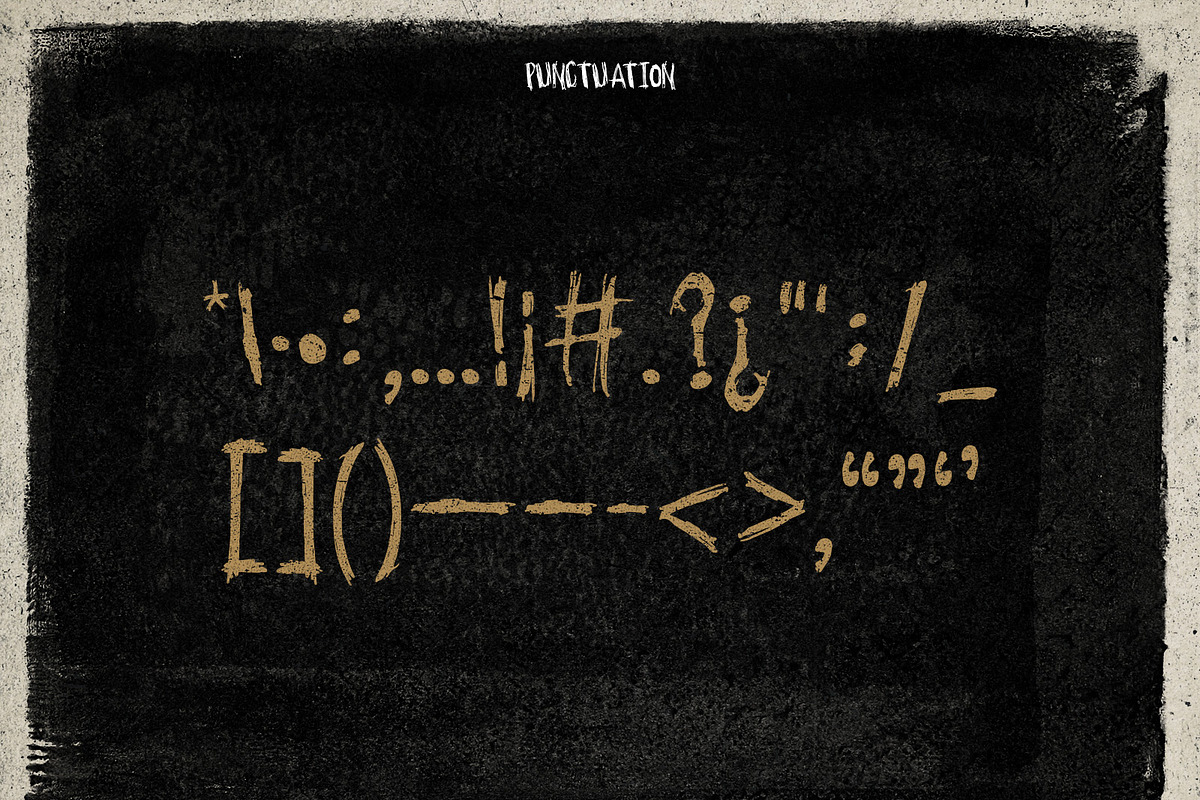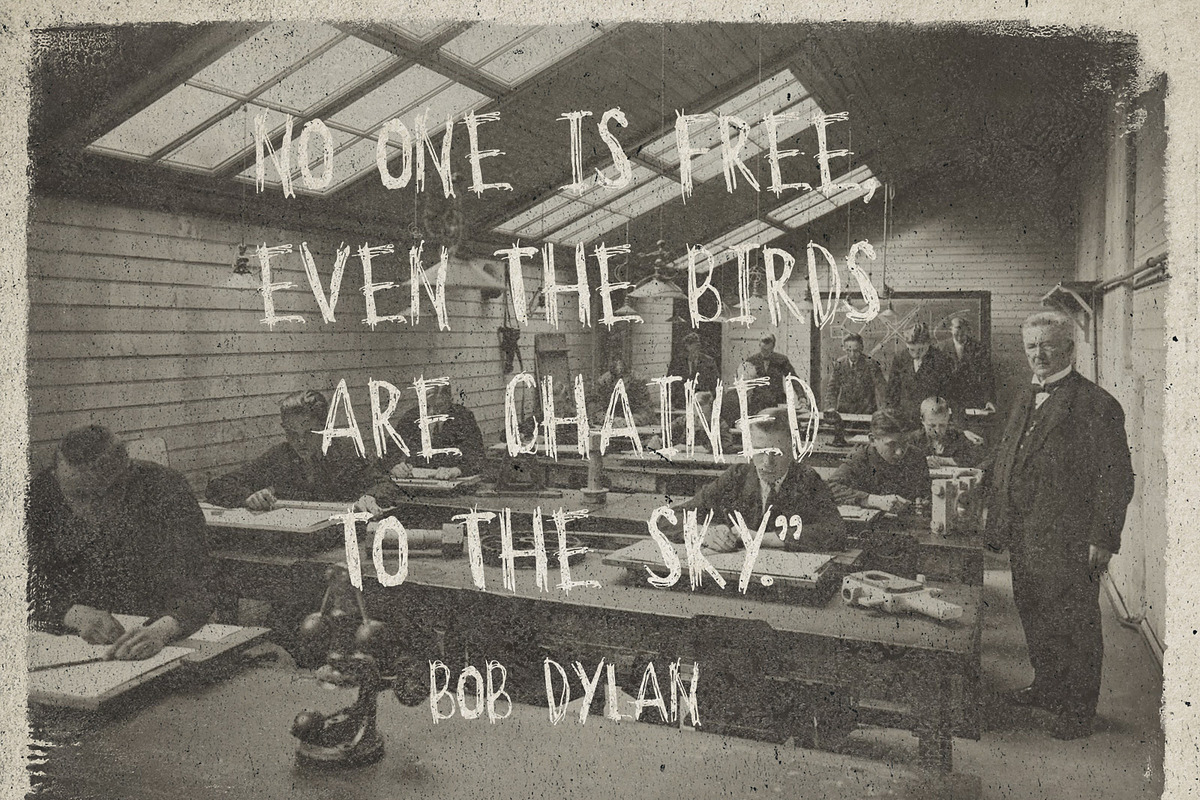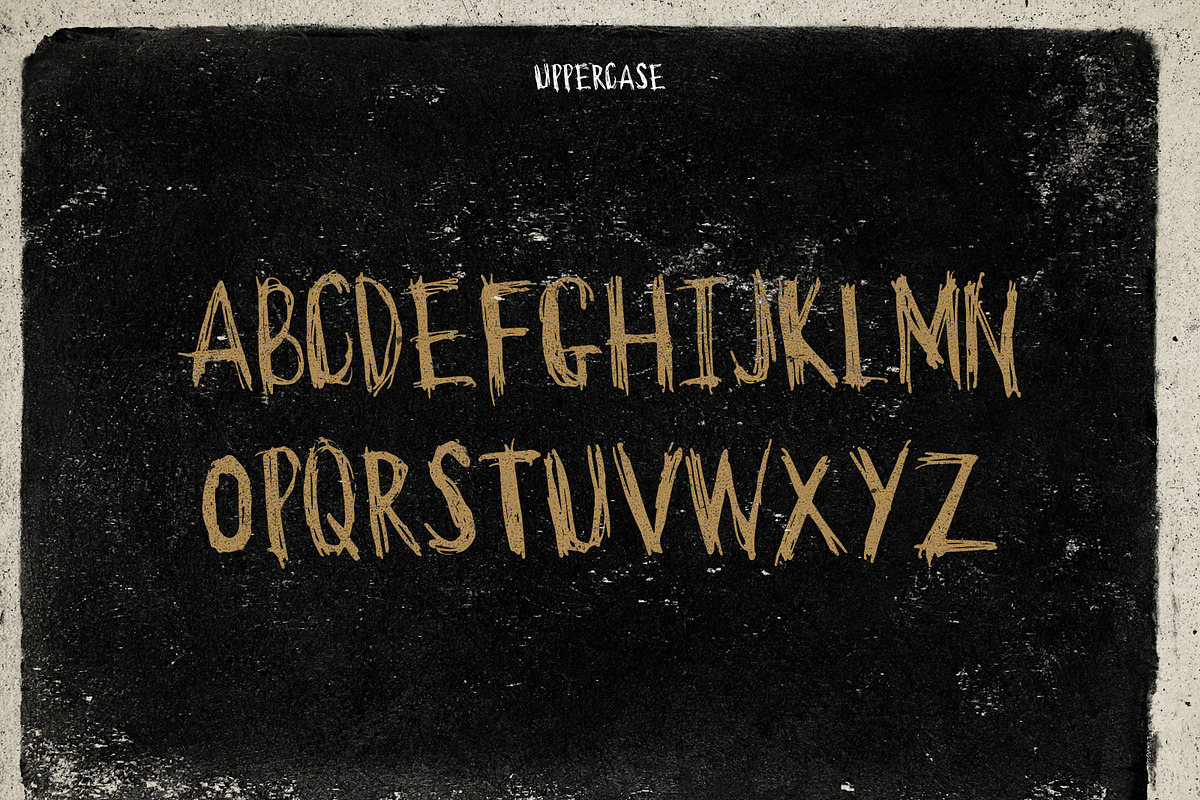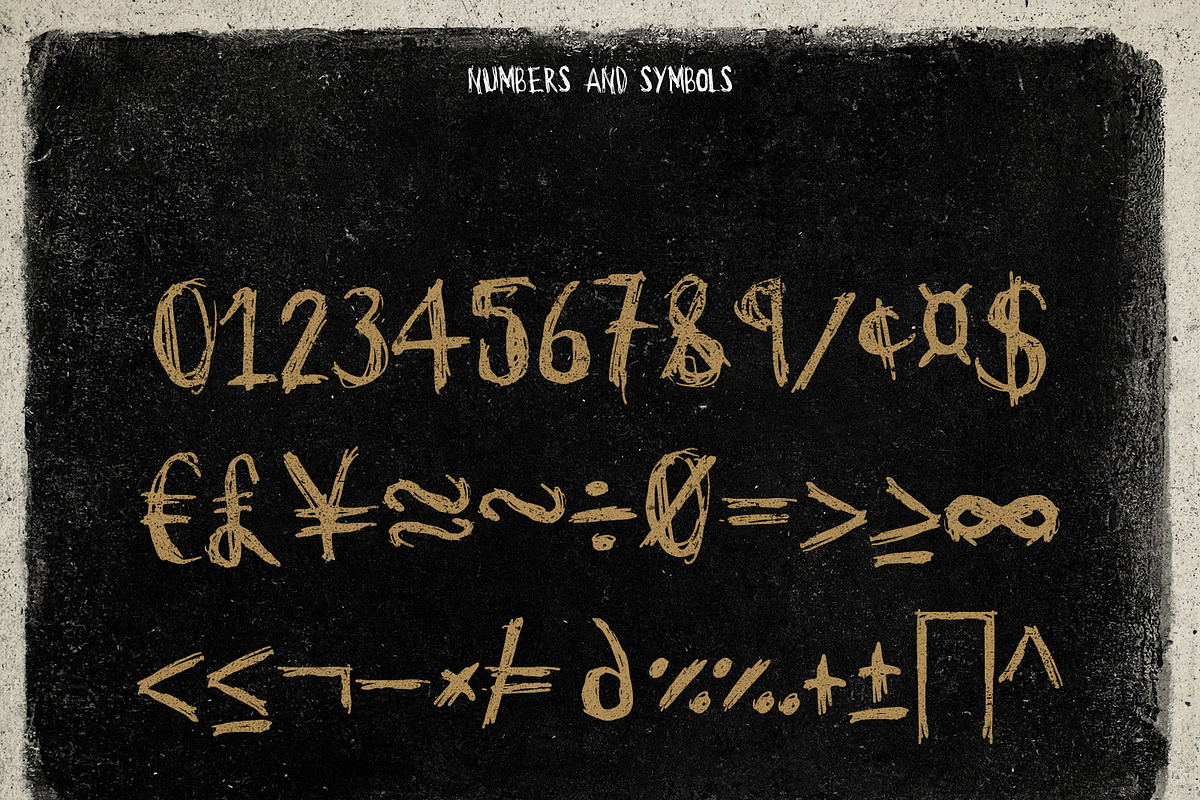
Display font Thirsty Dog
Display font Thirsty Dog by Itsmesimon is a font selected for branding, posters, packaging, typography.
- The font only includes uppercase letters, it has only 95 glyphs including numbers, punctuation and basic symbols.
Why Display font Thirsty Dog is worth a look
Display font Thirsty Dog by Itsmesimon fits naturally into Branding, posters, packaging, typography.